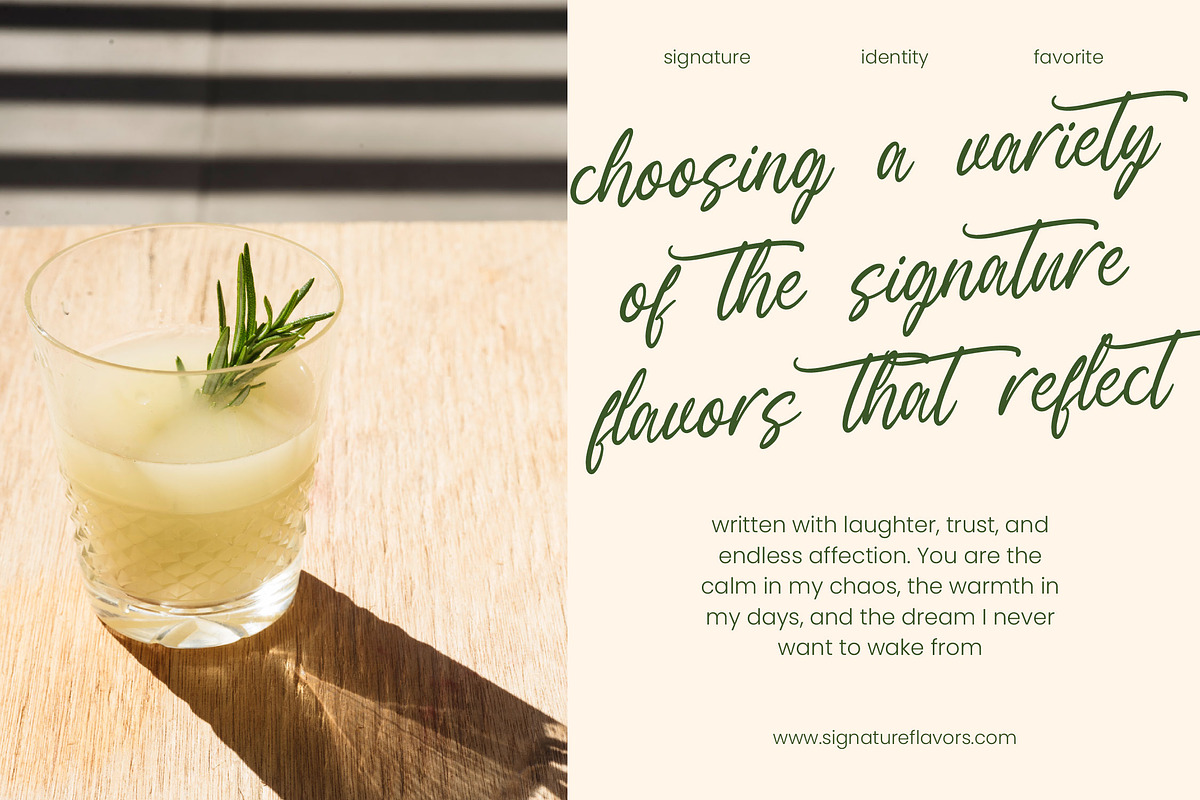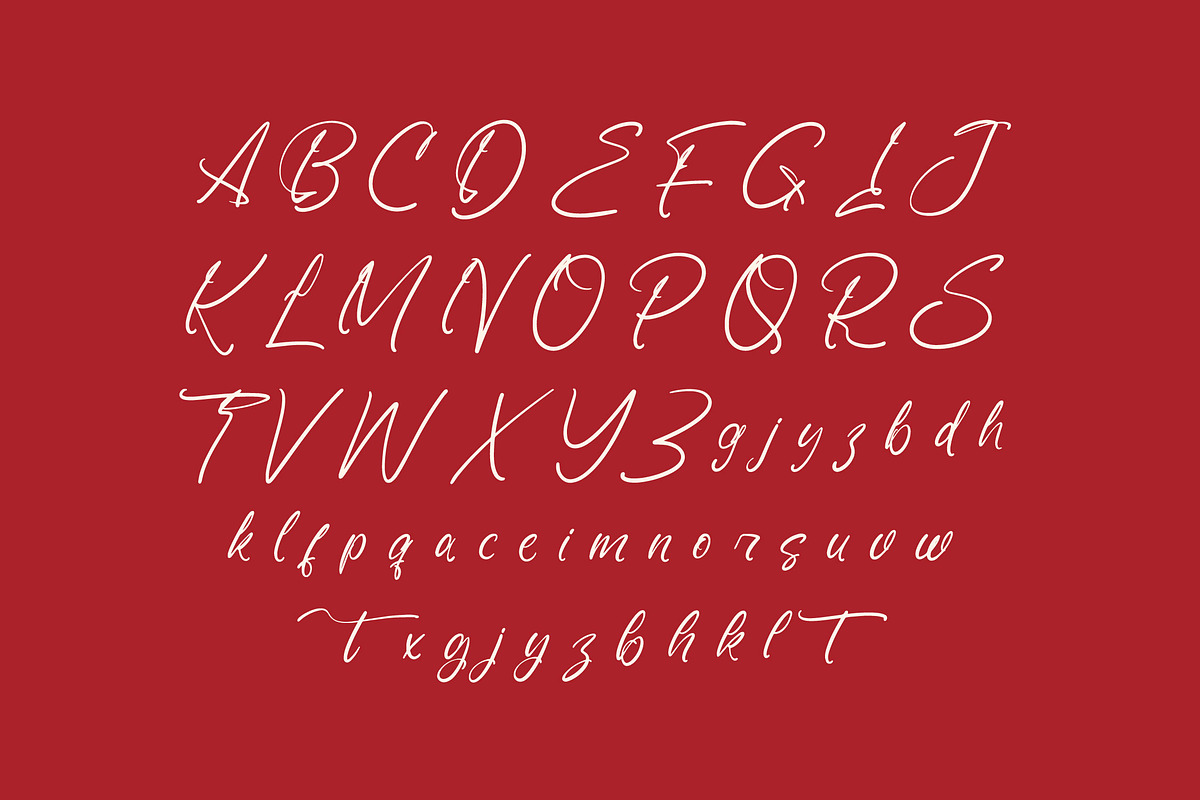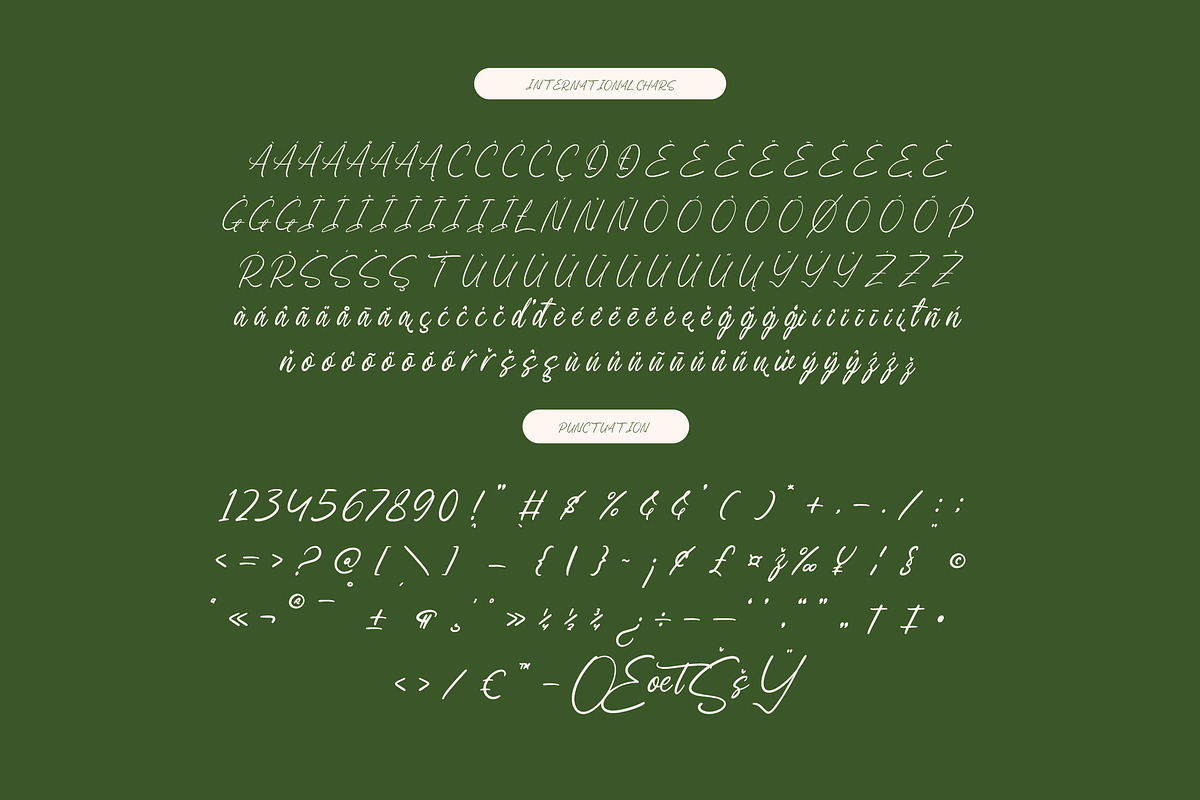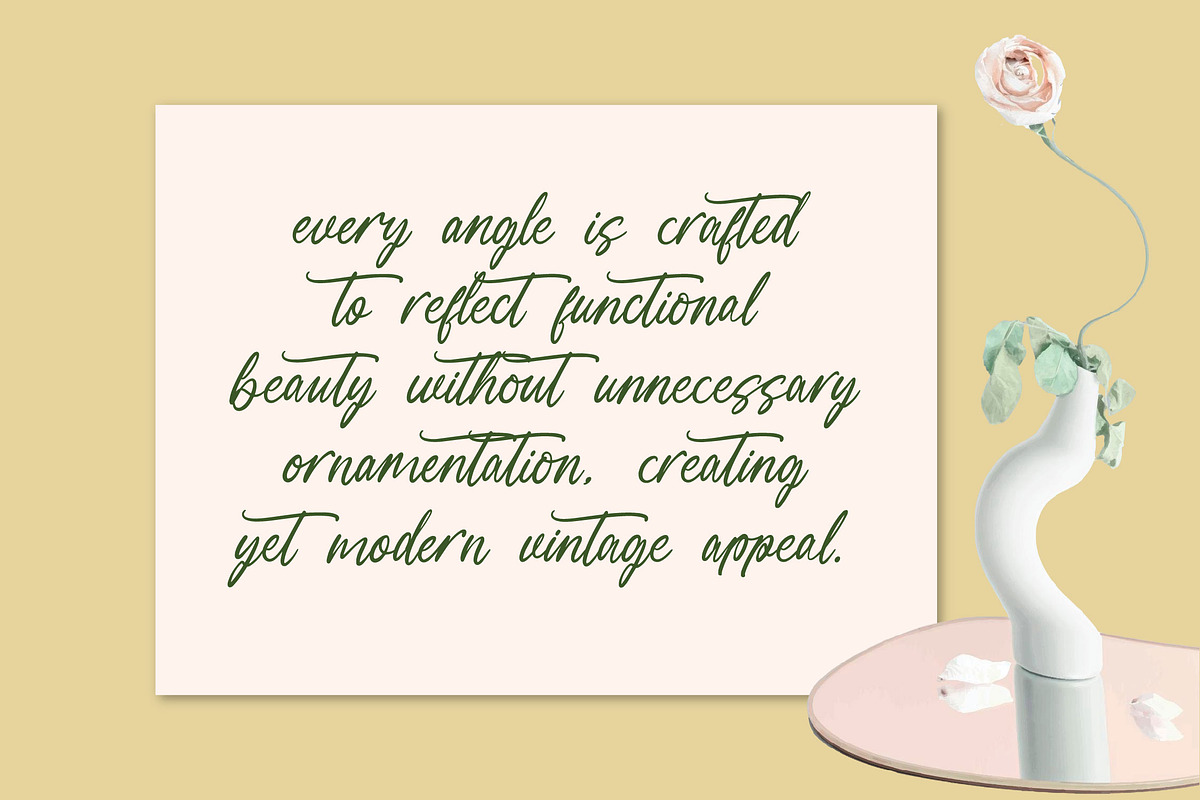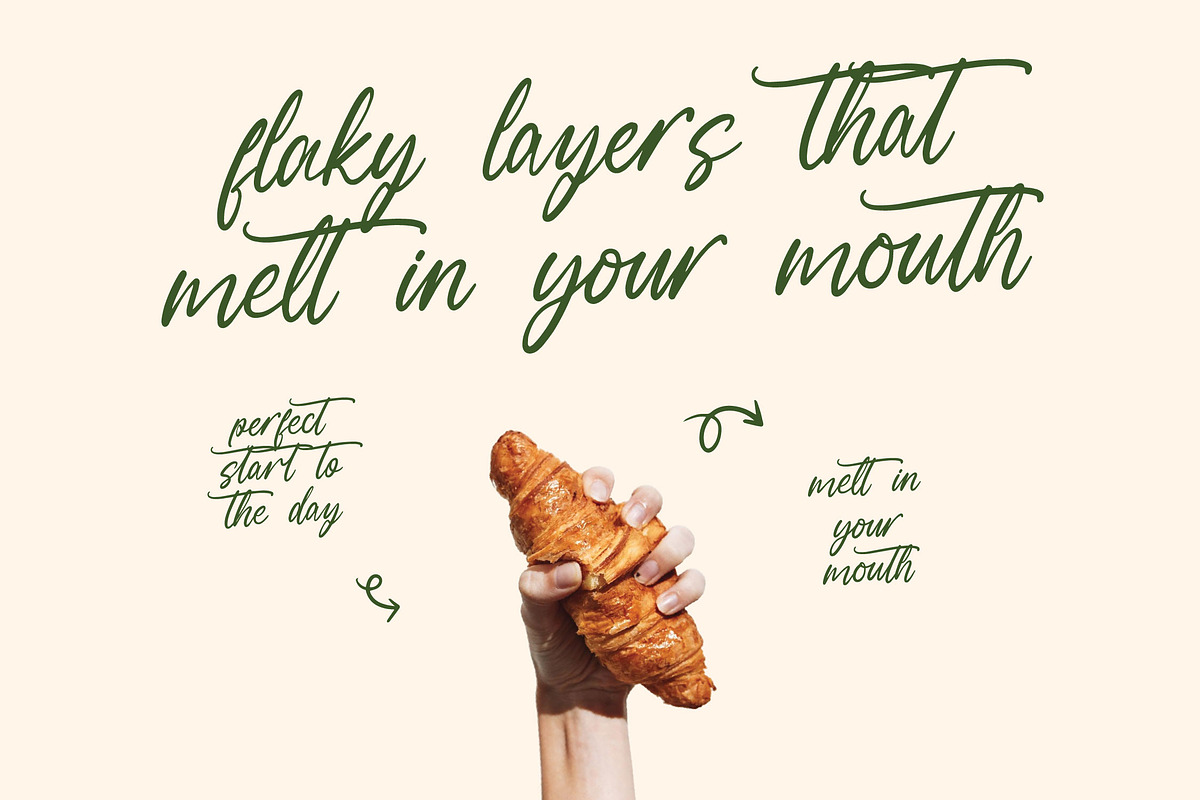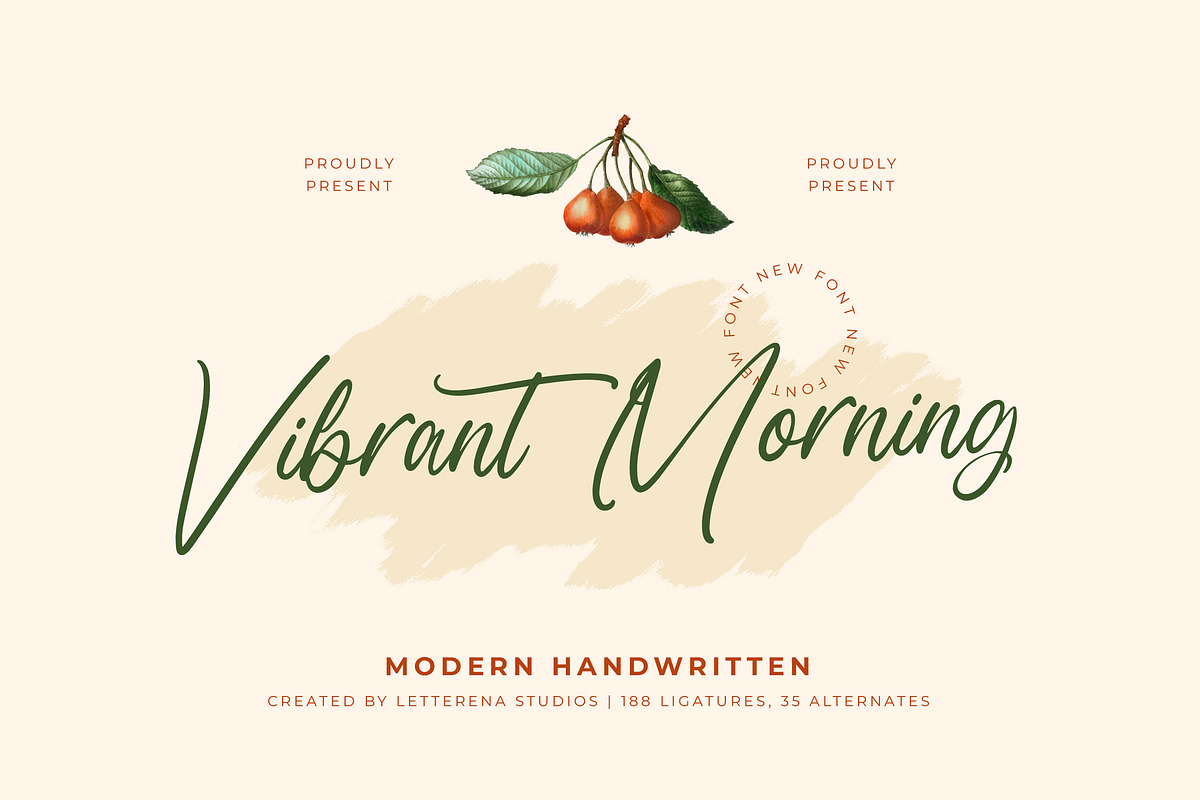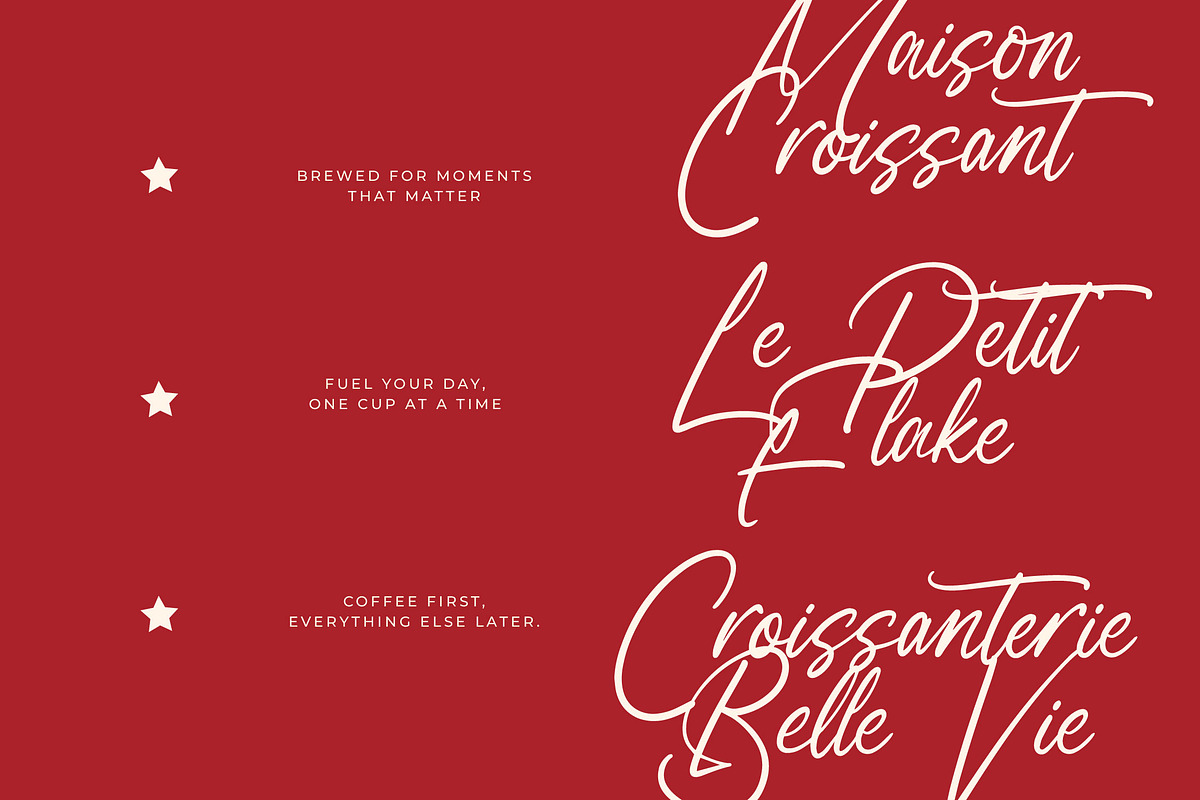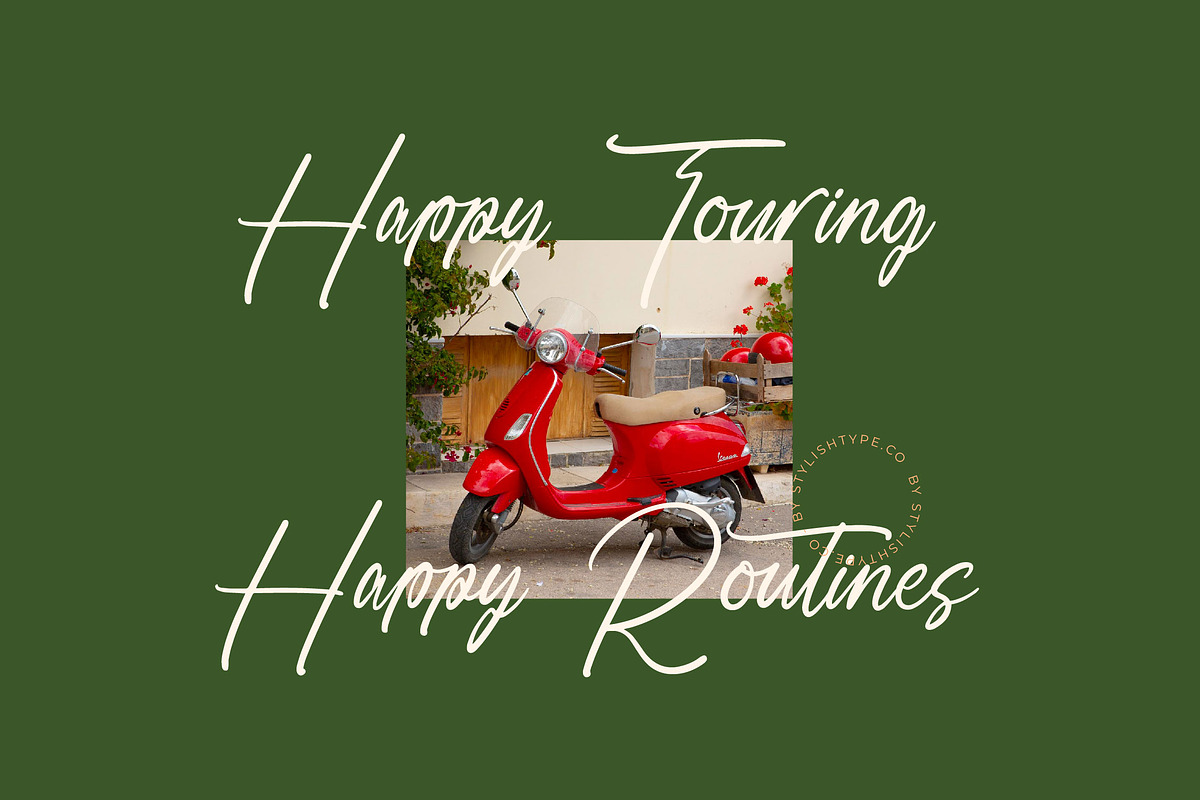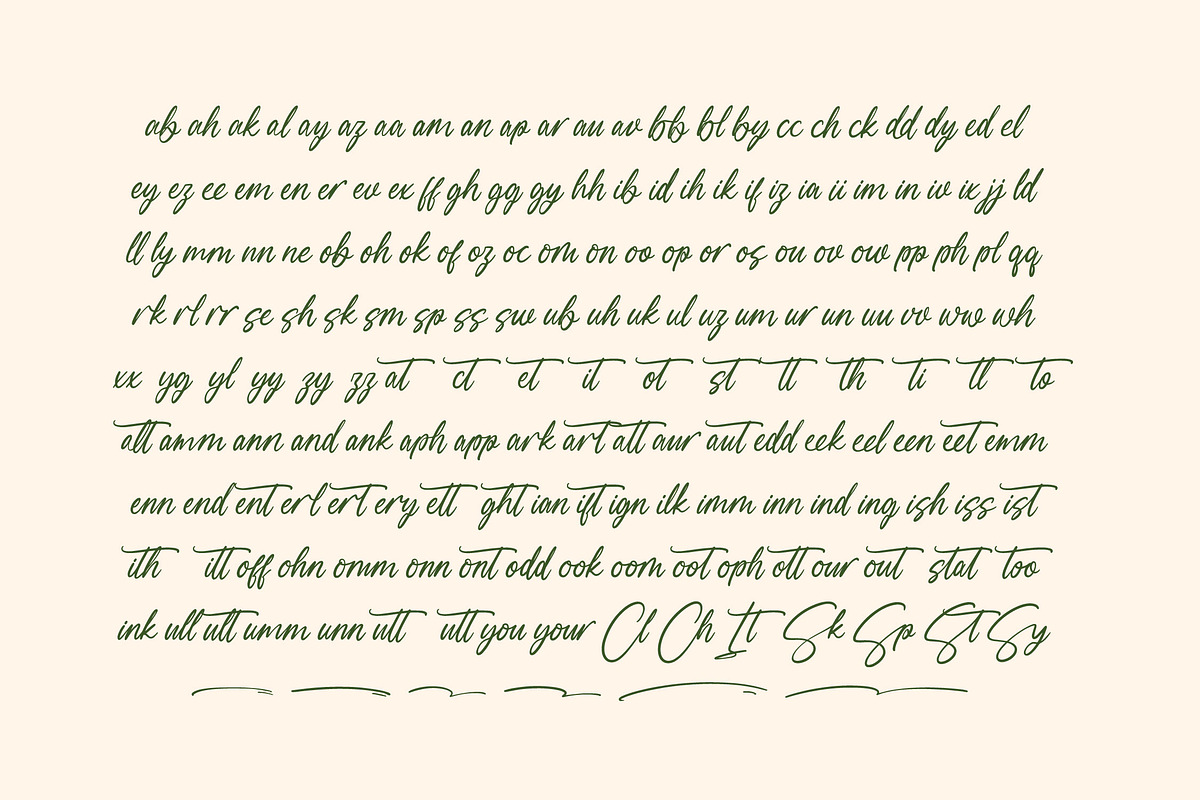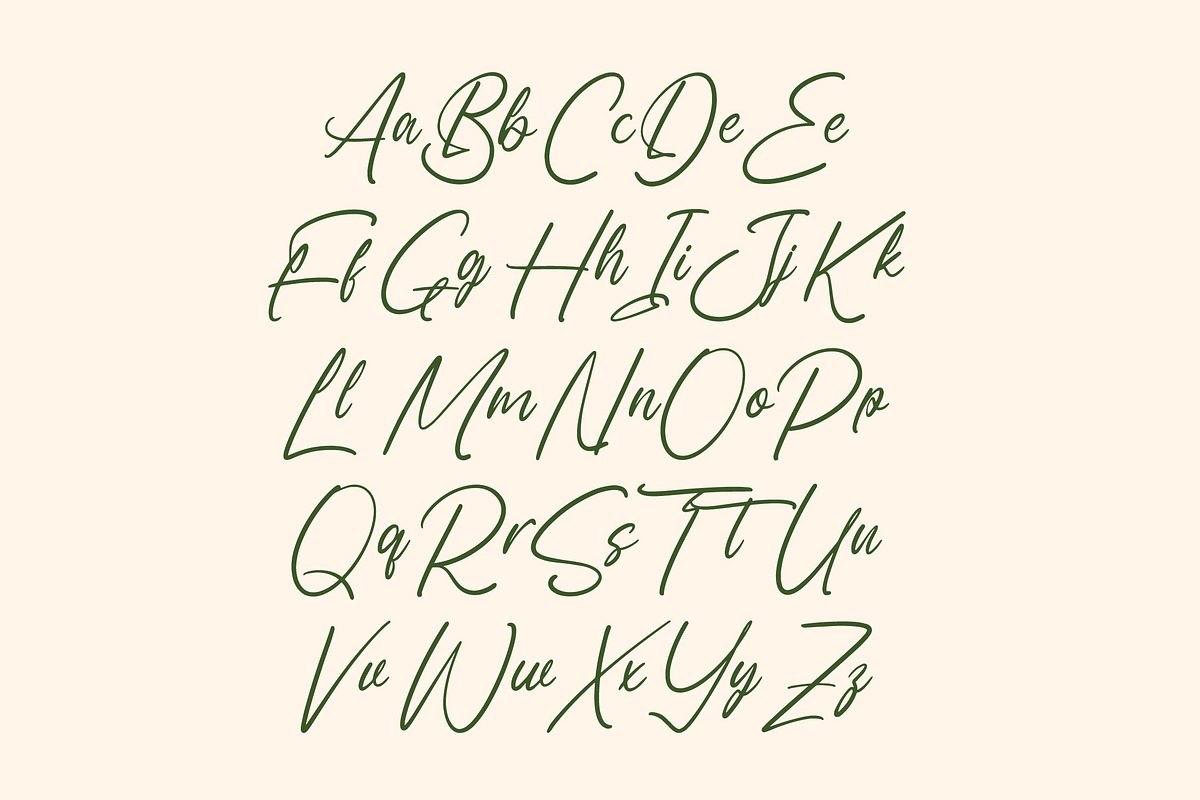
Vibrant Morning Modern Handwritten
Vibrant Morning - Modern Handwritten Font , Vibrant Morning is a modern handwritten script that blends natural flow, soft curves, and organic brush movement. Designed to bring warmth and freshness into every project, this font captures the charm of hand-lettered elegance—perfect for branding, packaging, wedding stationery, quotes, social media, feminine design, and lifestyle visuals.
With 188 ligatures and 35 stylistic alternates, Vibrant Morning offers endless combinations that feel authentically handwritten. Every letter is crafted to look smooth, uplifting, and effortlessly graceful—ideal for creating designs that feel bright, calm, and beautifully personal.